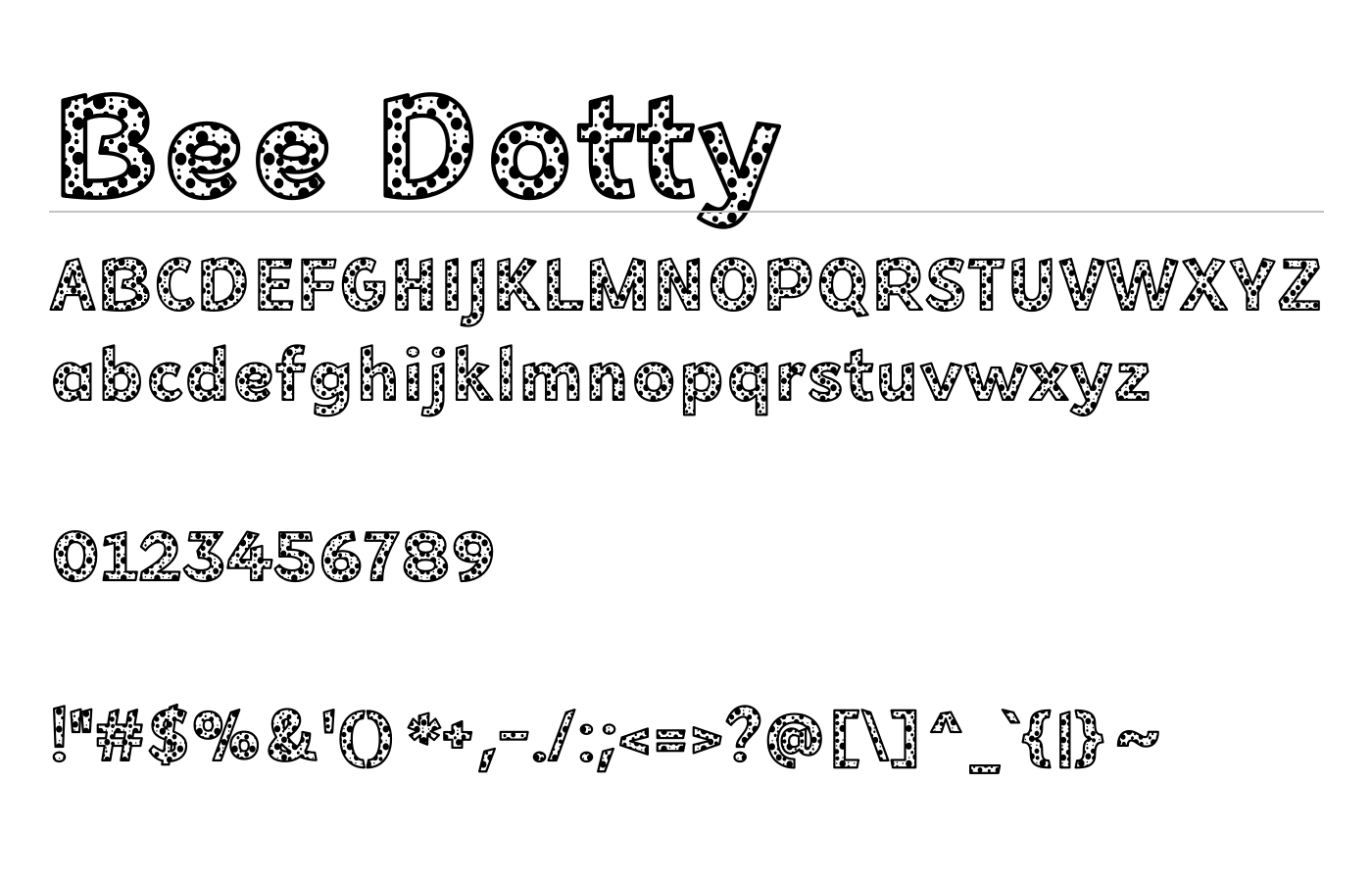
Bee Dotty is a playful sans serif font characterized by bold, rounded letterforms filled with whimsical polka dot patterns, giving it a fun and energetic vibe. Its medium weight and uniform stroke make it eye-catching and perfect for informal, cheerful designs like children’s products, party invitations, or creative branding. This font shines in headlines and logos where a lively, approachable personality is desired.
Bee Dotty Font
About Bee Dotty Font